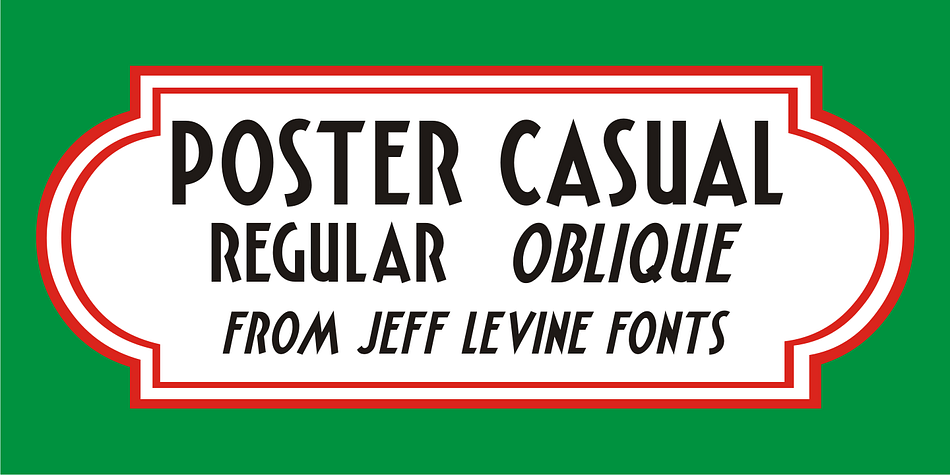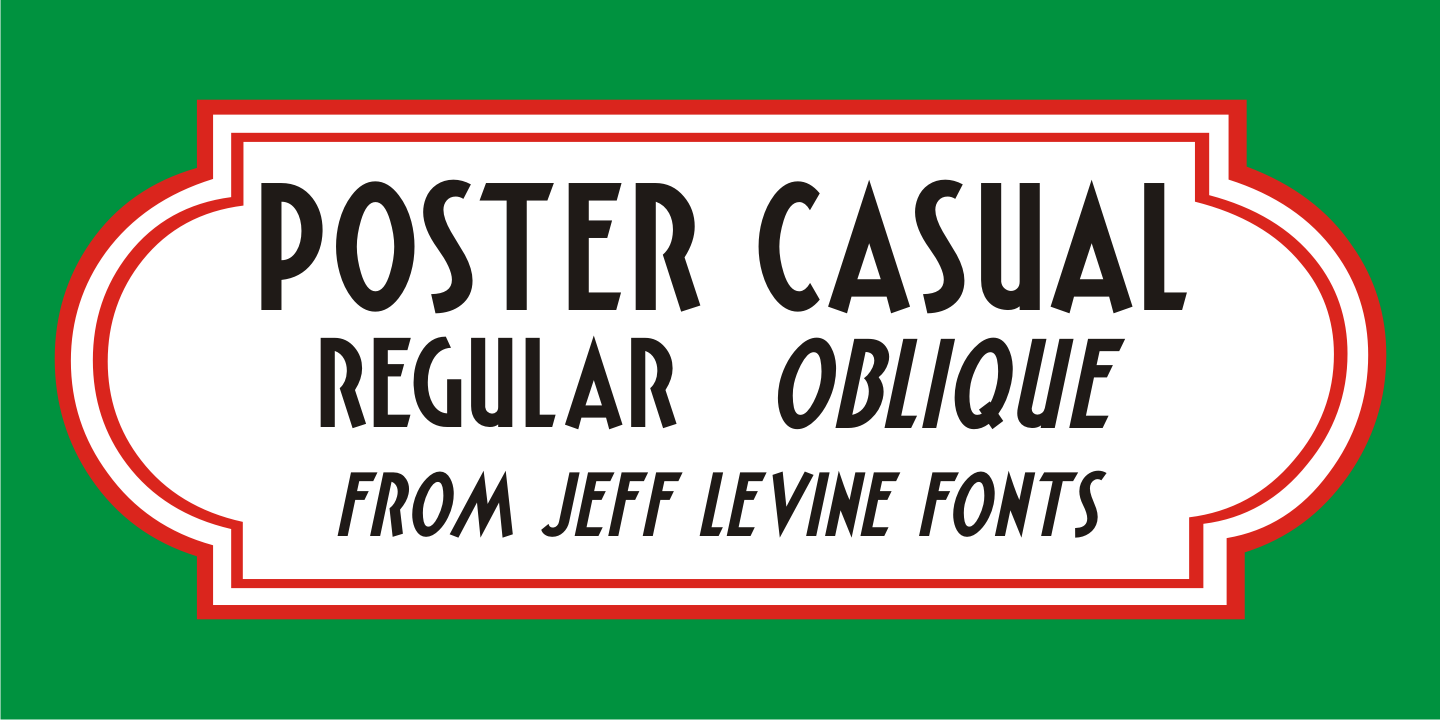
Poster Casual JNL is a display sans and art deco font family. This typeface has two styles and was published by Jeff Levine Fonts.
Poster Casual JNL is based on the hand lettered title on the cover of the 1929 sheet music for the song “Give Yourself a Pat on the Back”; touted at the time as being “the cheer-up song of England”.
Available in both regular and oblique versions, the font is perfect for applications where a less-formal look is desired in headlines or brief text.